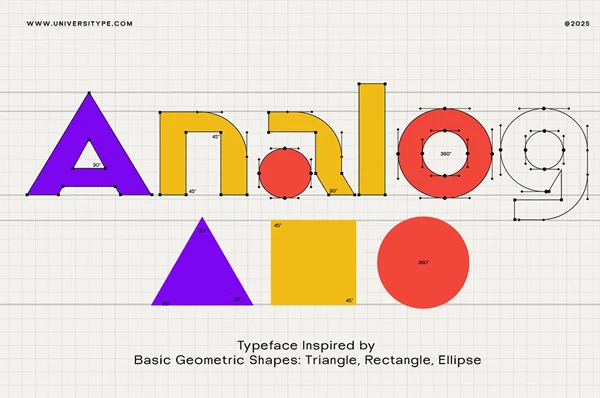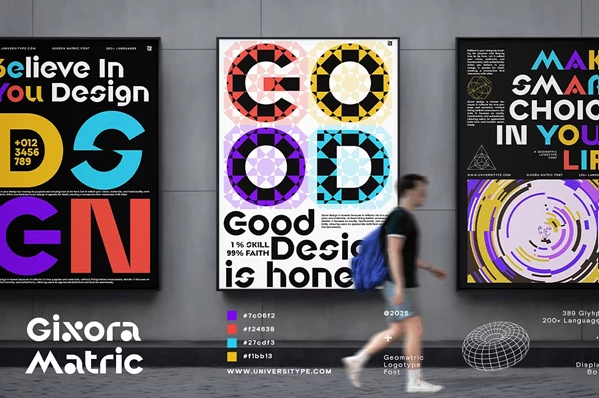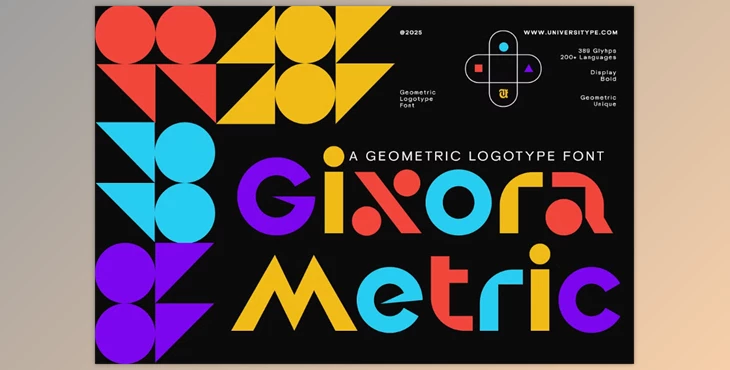
UT Gixora Metric - A Geometric Font:
UT Gixora Metric is a contemporary logotype font with a bold and geometric style crafted with modernist and Bauhaus influences in mind. Created using the principles of style and impressive visual effect, it is perfect for_spacing, logos, and branding in general due to it's striking and sophisticated appeal.
With 389 glyphs worth of over two hundred languages font support, it is perfect for professional branding projects that need to target audiences around the world, ensuring that both digital and print will always have great design.
Some great features of UT Gixora Metric - A Geometric Font:
- Strong strokes and weight add to visual dominance making it exceedingly bold.
- Geometric Design: A modern touch with the incorporation of circles, triangles, and rectangles.
- Multilingual Support: Global branding is covered with supporting over 200 languages.
- Comprehensive Glyph Set: Character coverage is expanded due to the 389 glyph set.
- Versatile Application: Web design, marketing, and logos are only a fraction of what this font can do.
- Design Heritage: Impact and modernist and Bauhaus typography inspired structural clarity.